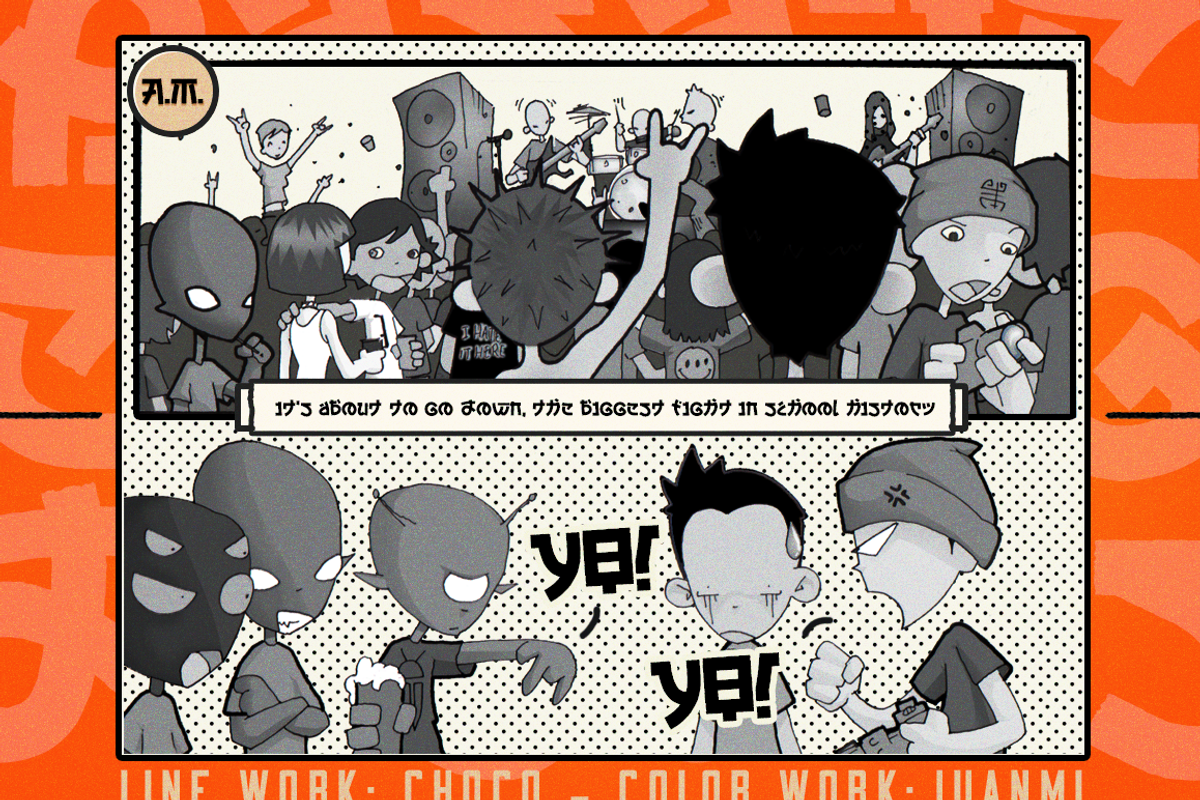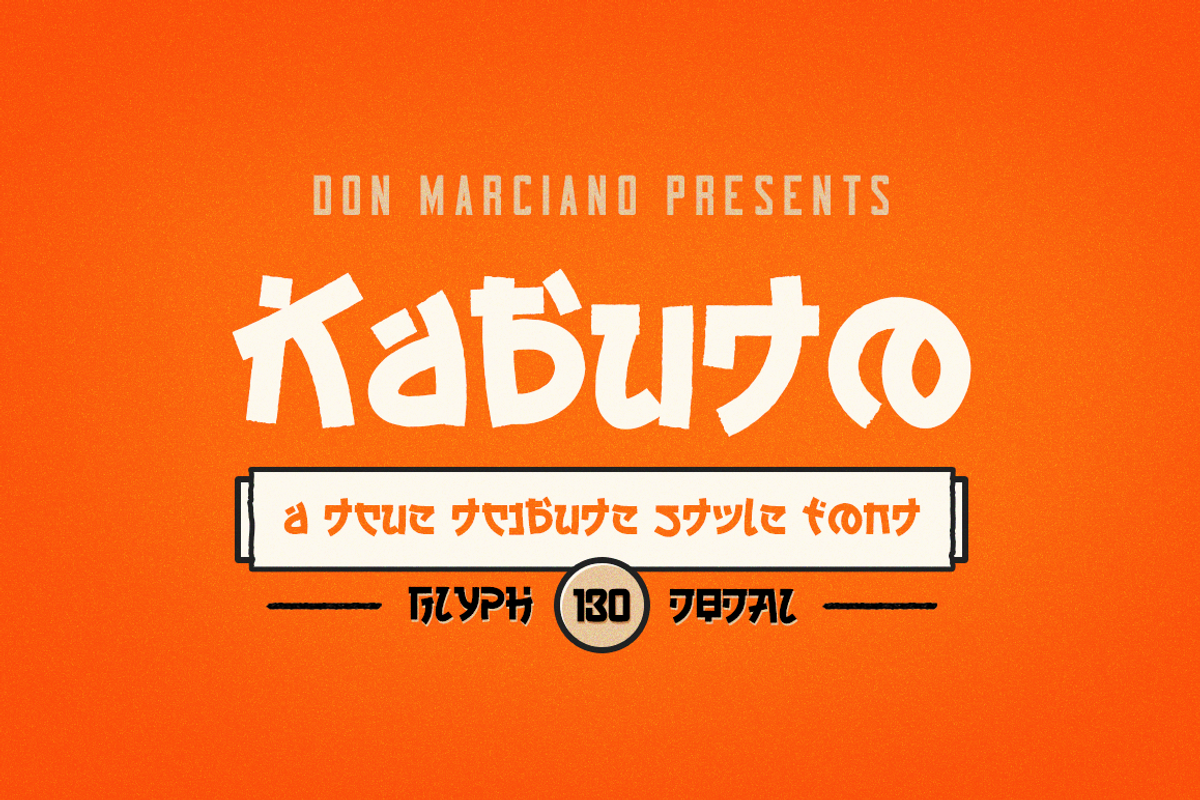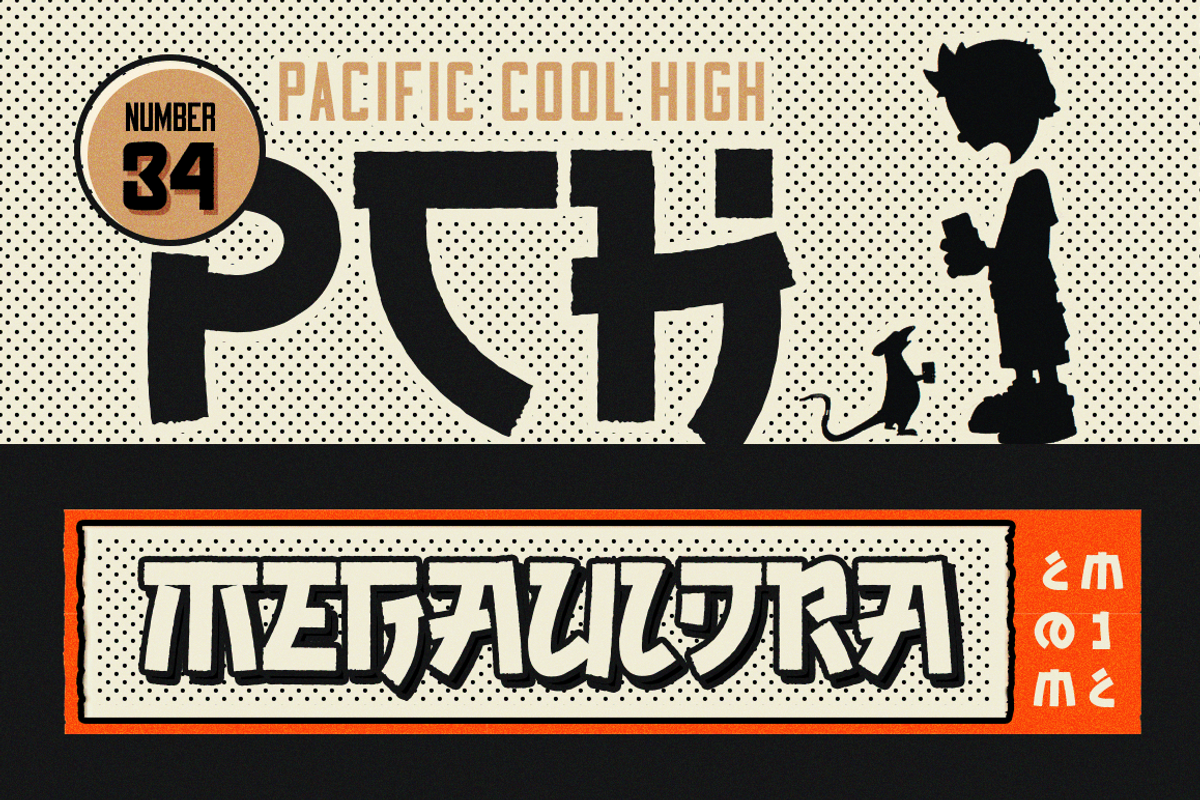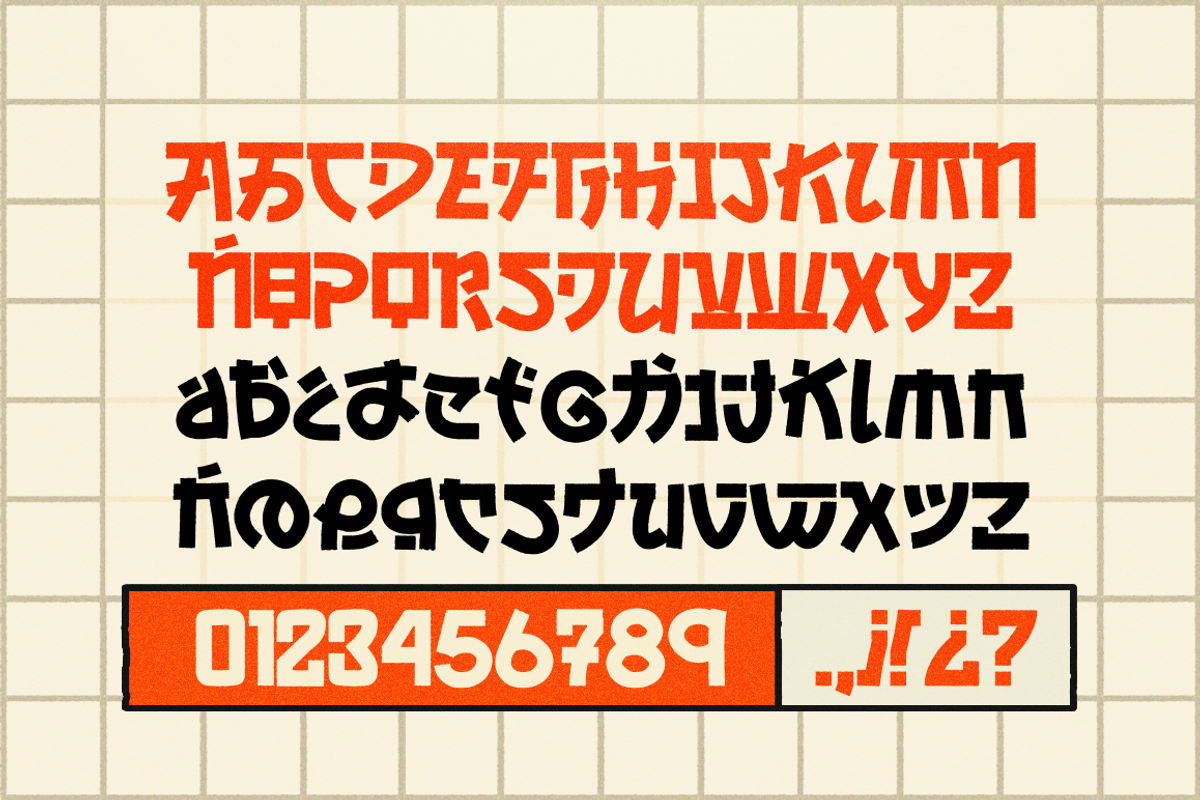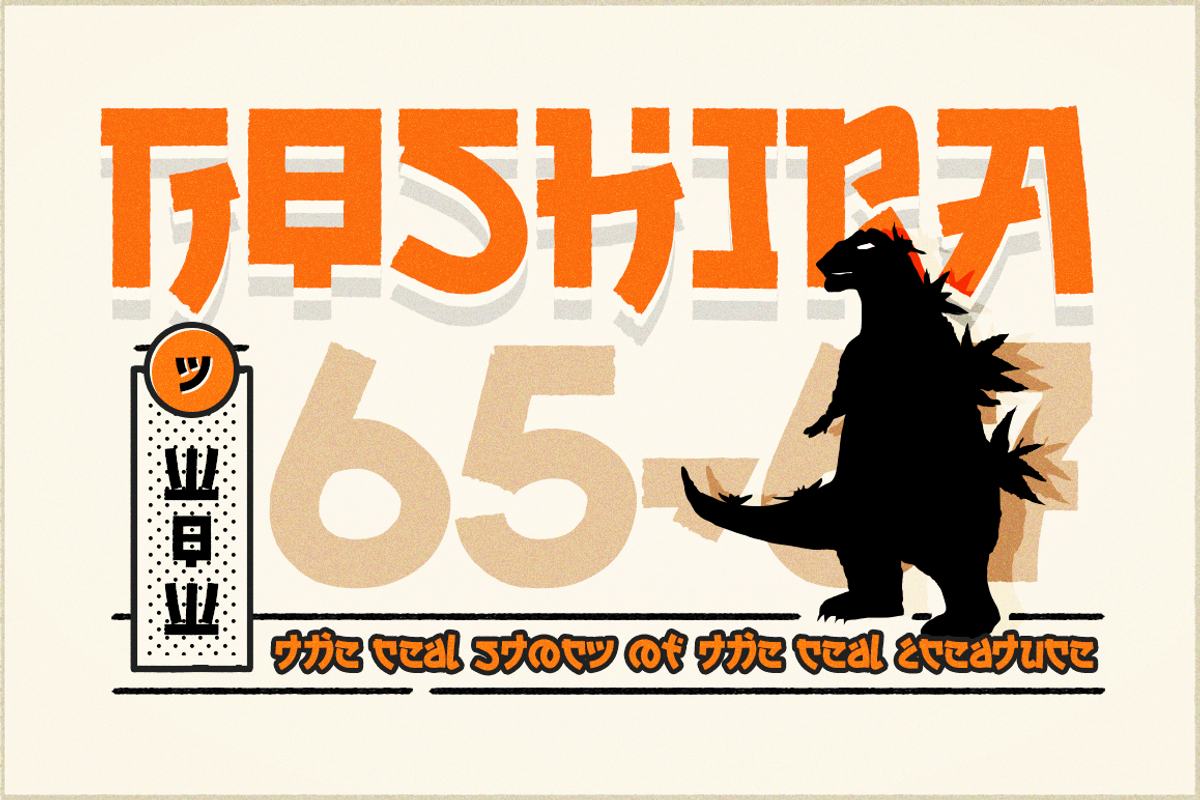
Kabuto Tribute Font
Kabuto is a tribute style font, design to emulate the great look and feel of the Japanese alphabet so it can be readable by westerners as it retains the elegant and exotic style of its inspiration; designed with straight and curve lines with a combination semi roughness, originally for a apparel only brand focus on stream media products that are easy to scale up.
Why Kabuto Tribute Font is worth a look
Kabuto Tribute Font by DonMarciano fits naturally into Branding, posters, packaging, typography.